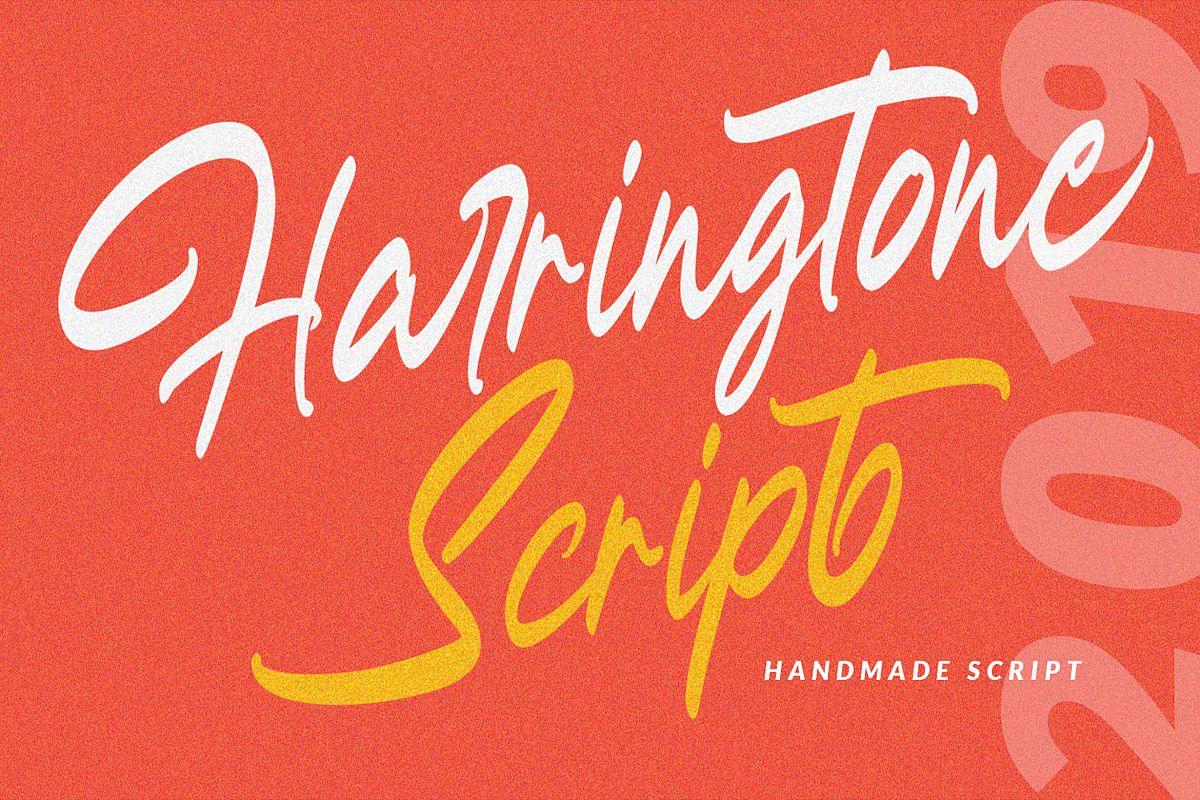
Harringtone Script
Harringtone Script is Modern Elegant Style this is perfect for branding, logos, card name, invitation, masterheads and more.to use a beautiful alternative, you need a program that supports OpenType features such as Adobe Illustrator CS, Adobe Photoshop CC, Adobe Indesign and Corel Draw.—-—-—-—-—-—-—-—-—-—-—-—-—-—-—-—-—-—-—-—-—--Files Included : Harringtone.ttf, Harringtone.otf Features : Basic Latin A-Z and a-z, Numbers, Symbols, PUA Encode, & Ligature Multilanguage Support —-—-—-—-—-—-—-—-—-—-—-—-—-—-—-—-—-—-—-—-—--Can be used for both Commercial and Personal projects. Contact me with an inbox message If you have any question.Thank you!Happy Creating.